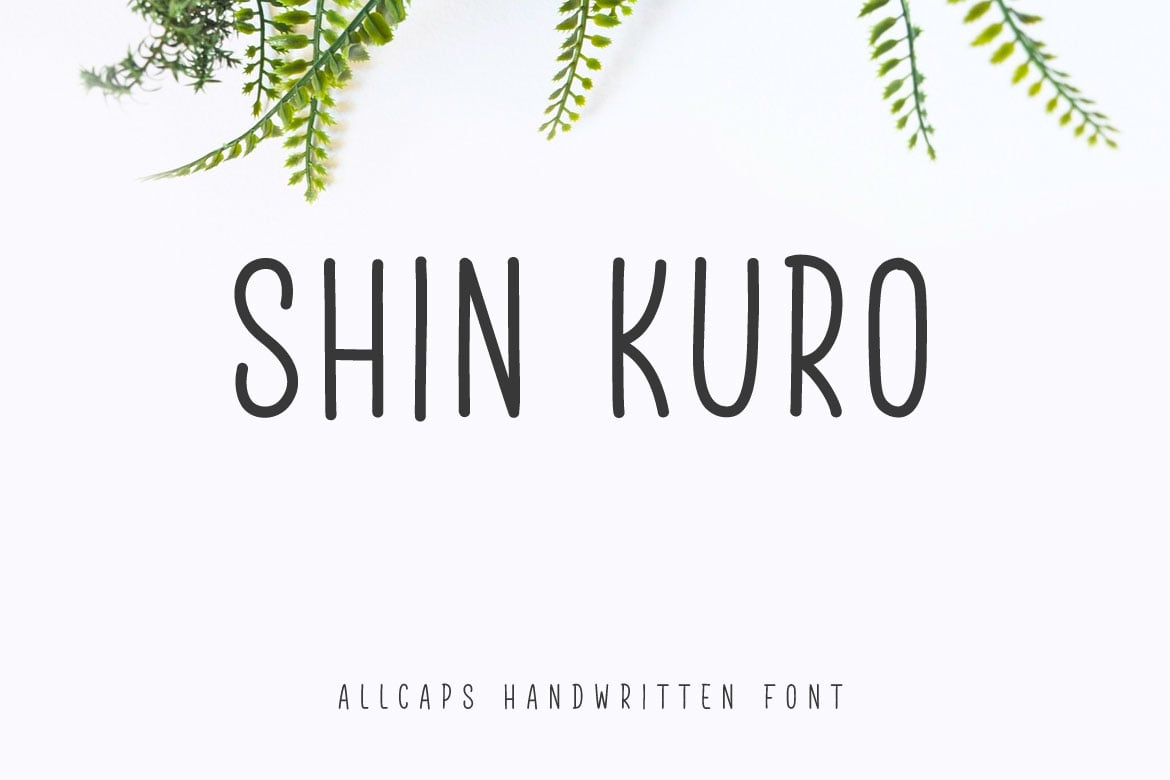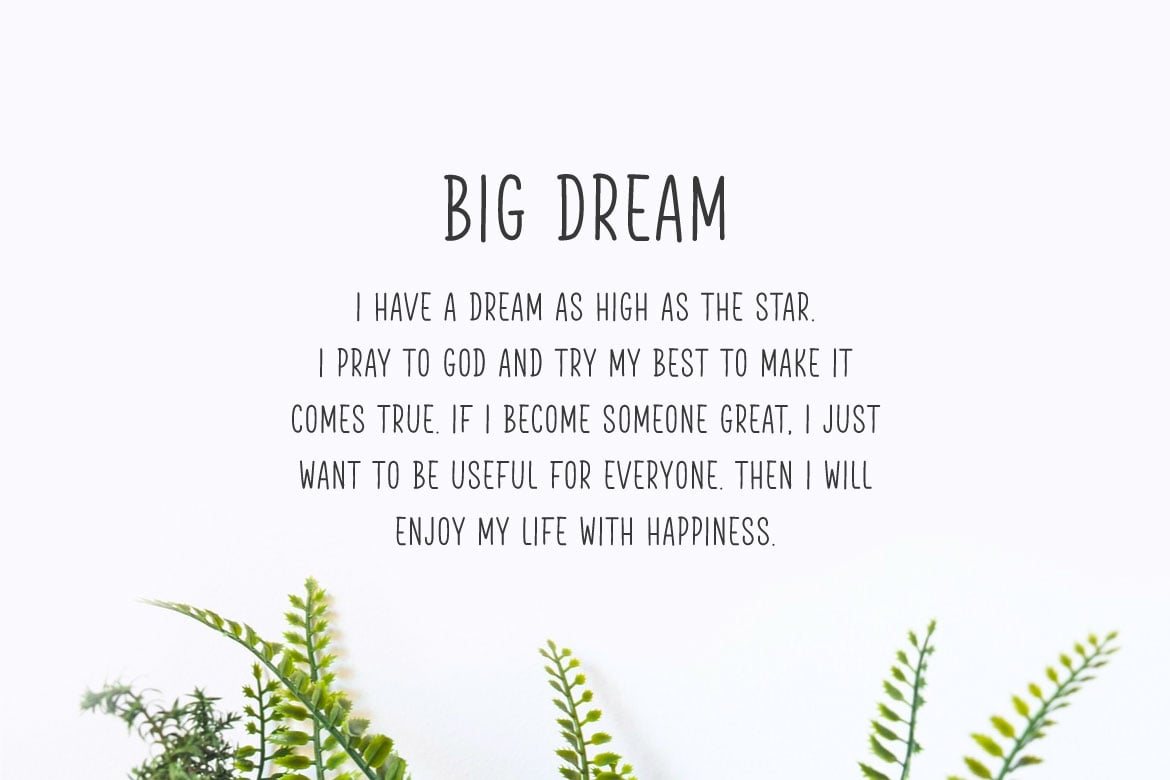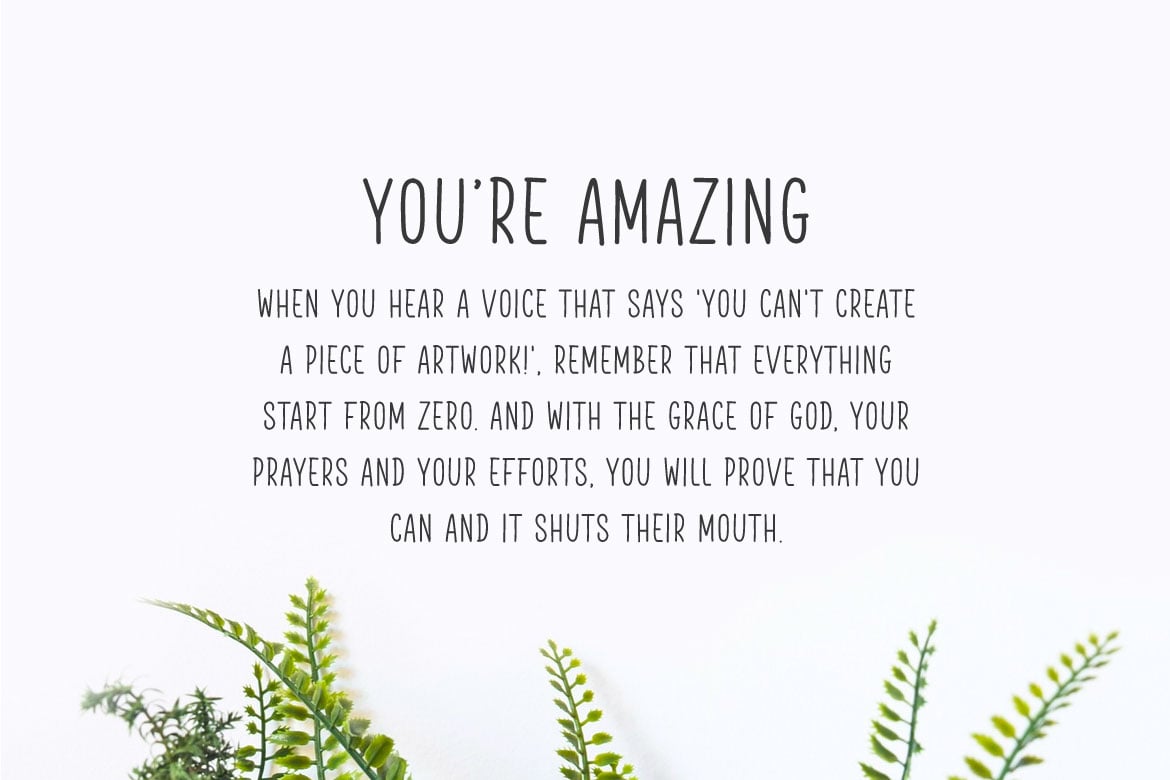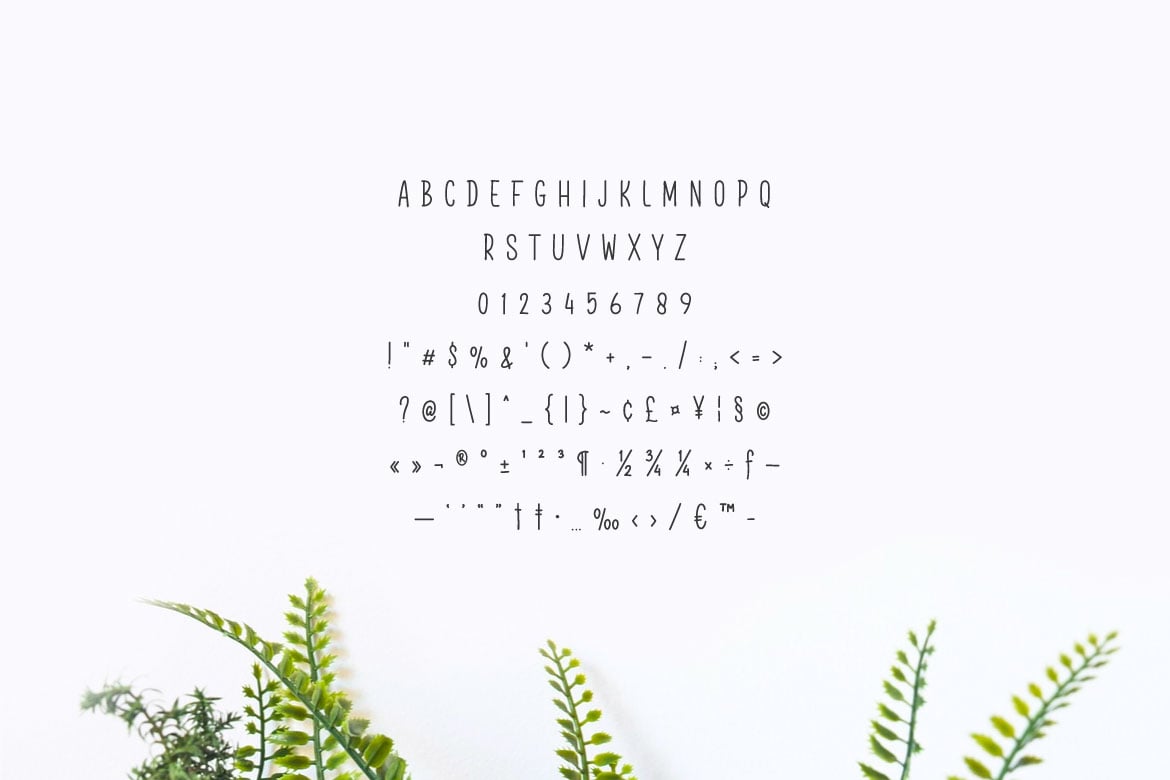
Shin Kuro – Condensed Thin Handwritten Font
Hello! Shin Kuro is a condensed tall font.
Shin Kuro can be used in any works such as comic book, poster, school, flyer, book title, advertisement, social media content, logo and many more.